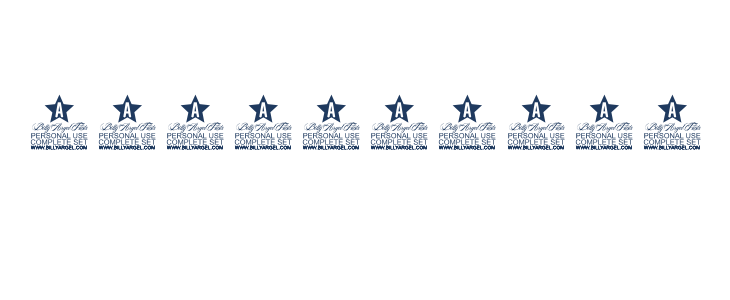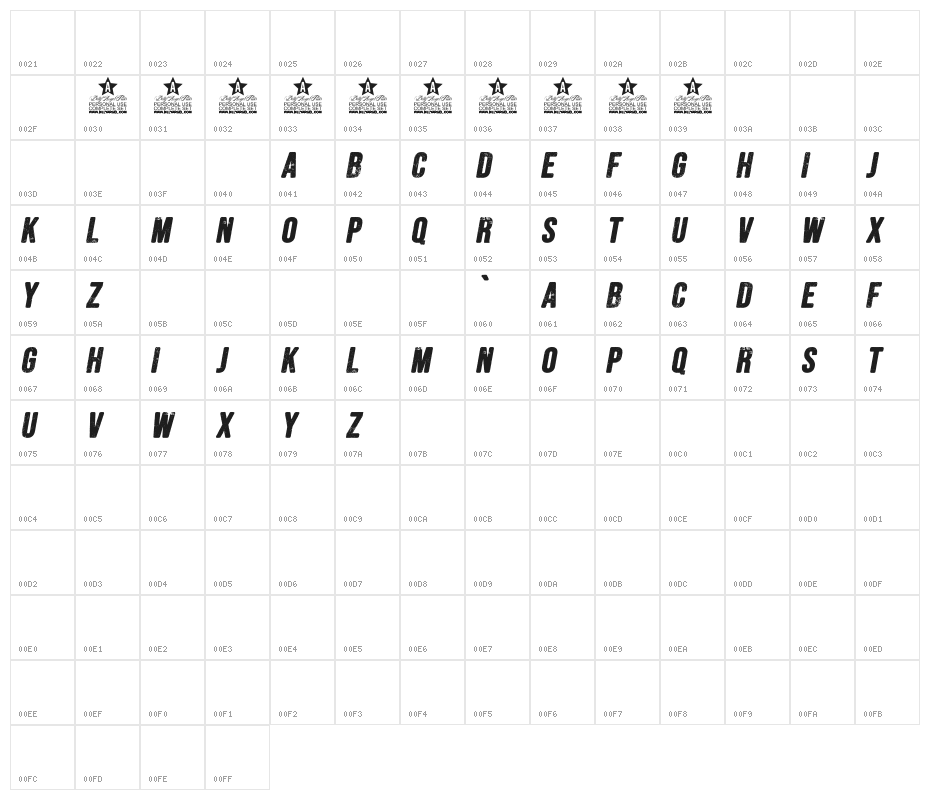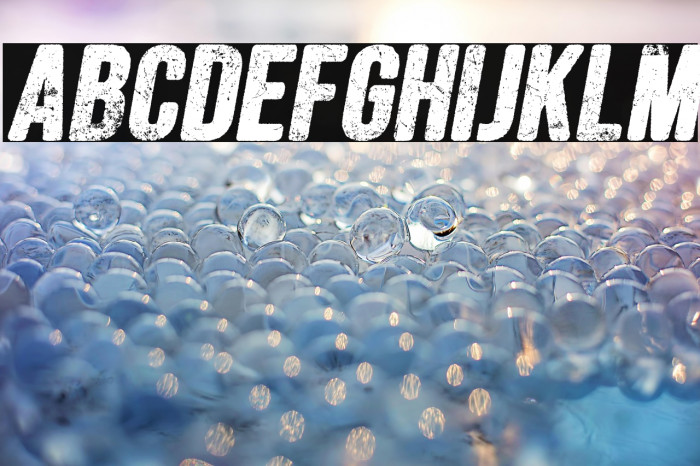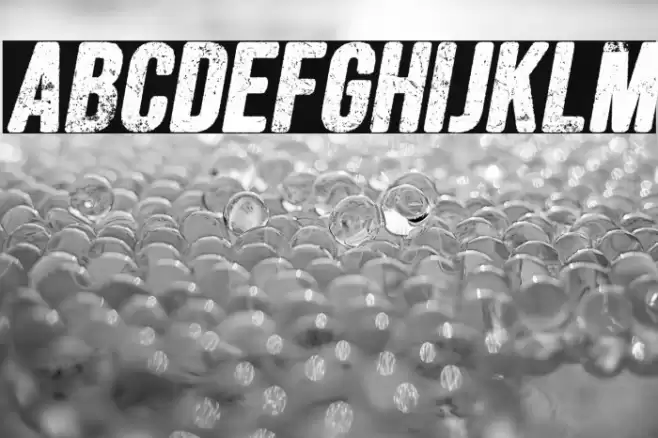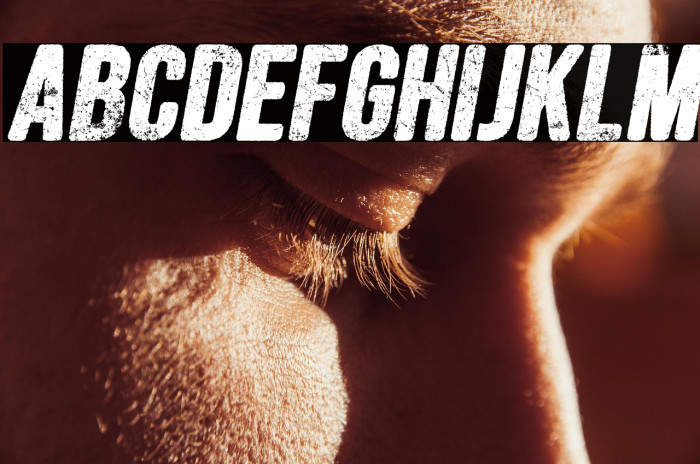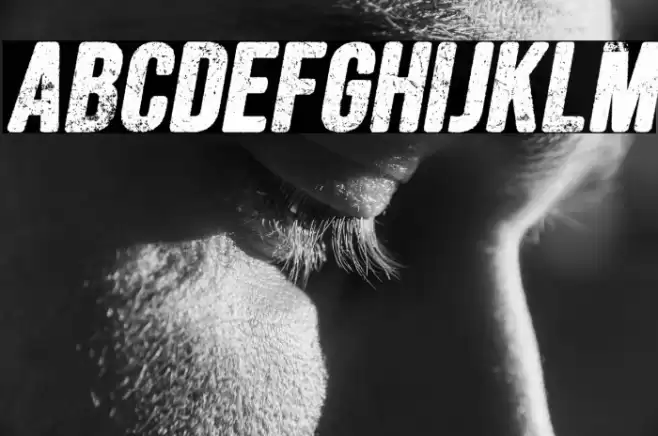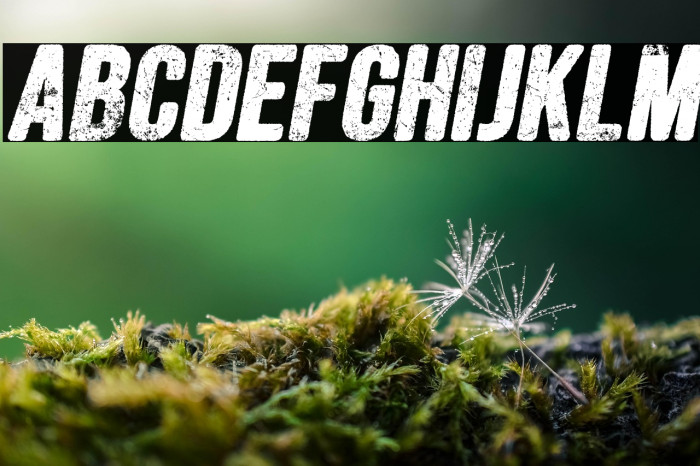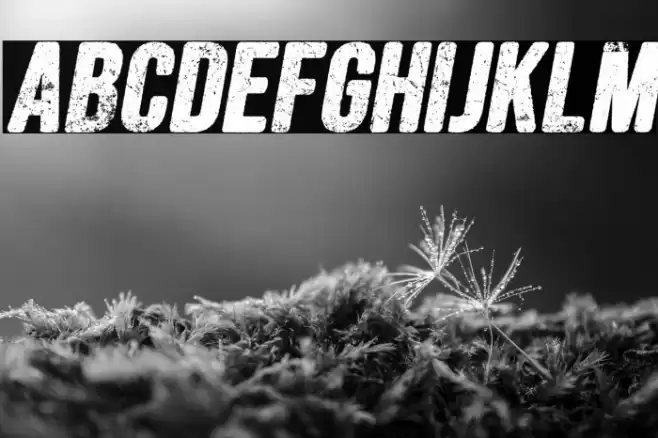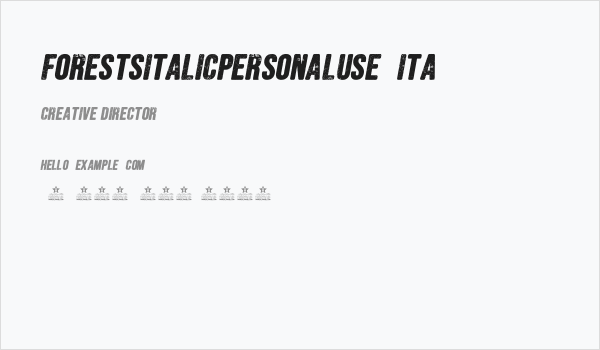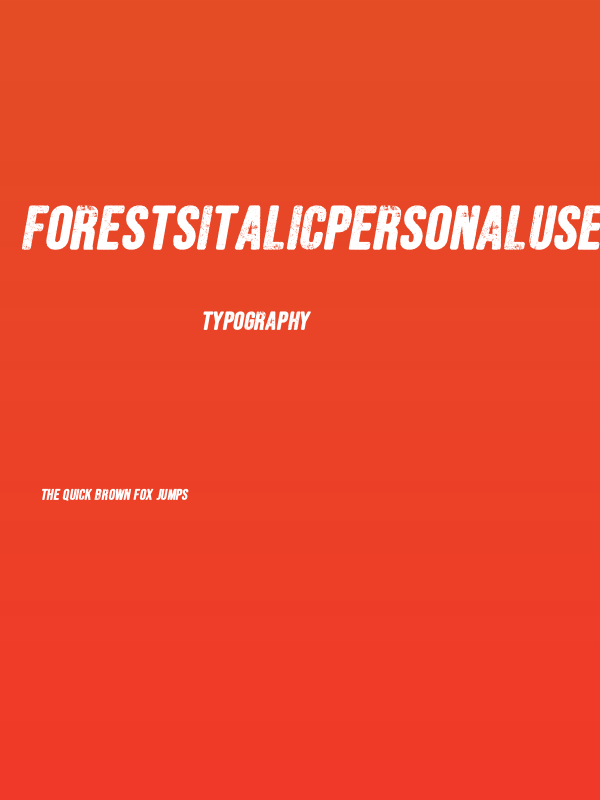
FORESTSITALICPERSONALUSE-Ita Font
FORESTSITALICPERSONALUSE-Ita Description
This font features a bold, italicized style with a distressed texture, giving it a rugged and vintage appearance. The uppercase letters are prominently displayed, showcasing a strong presence with slightly condensed proportions. The texture adds a unique, worn-out look, reminiscent of old printing techniques or weathered signage. The font's design is suitable for projects that require a bold statement with a touch of nostalgia or a rustic feel. Its italic nature adds a dynamic and forward-moving energy, making it ideal for attention-grabbing headlines or impactful branding.
| Proposed Projects | Ideal for vintage-themed posters, rustic branding, or dynamic headlines. |